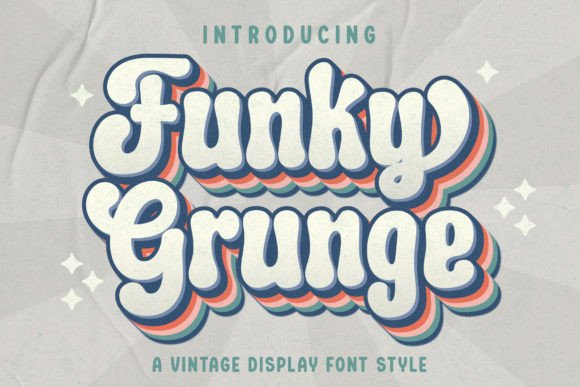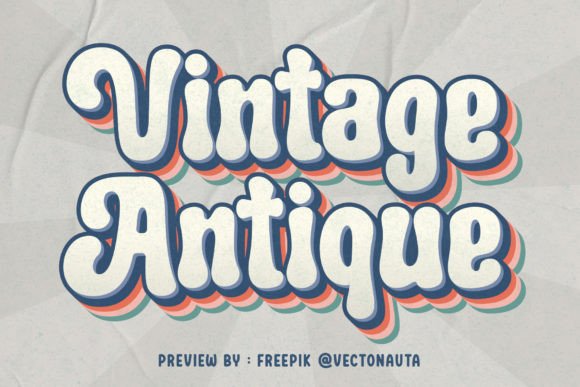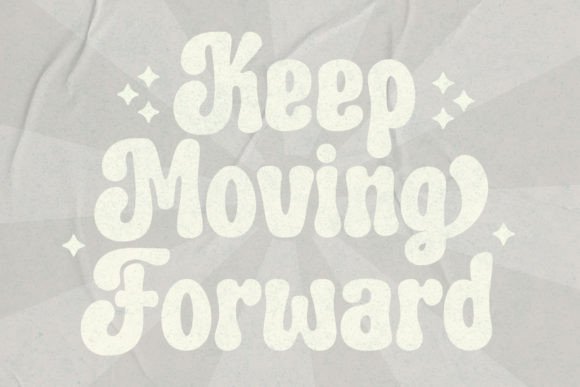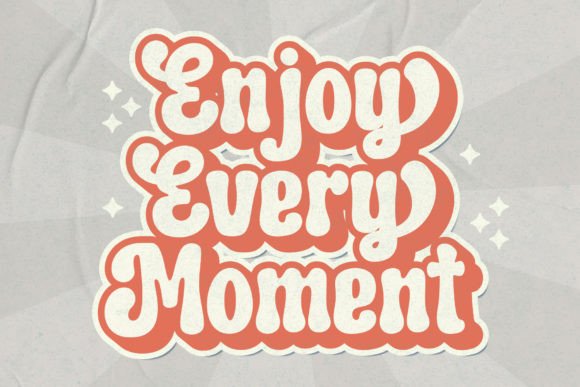
Funky Grunge Font
About the Funky Grunge Font
The Funky Grunge Font is here to transform your projects with its distinctive character and style. Funky Grunge is a cool, vintage-style display font. Use it to add that special retro touch to any design idea! It can be used for logos, branding, invitations, stationery, wedding designs, social media posts, and much more!
Funky Grunge excels as a display font for headlines, short text blocks, and logos where its bold, vintage character makes a statement. It’s ideal for projects with a retro, rebellious, or grunge aesthetic—think music posters, clothing brands, or vintage-inspired packaging. Avoid using it for body text or lengthy paragraphs; its highly stylized forms are difficult to read at smaller sizes.
For effective pairings, consider a clean sans-serif like Montserrat for body copy to create contrast, or a more geometric sans-serif like Futura for a modern twist. A simple serif font such as Garamond could also add sophistication and readability to supporting text.
The font’s core personality is bold and rebellious, conveying a sense of vintage coolness and unconventionality. It’s best suited for brands that project a strong, distinctive image.
Funky Grunge Font Usage Examples
Funky Grunge Font Example